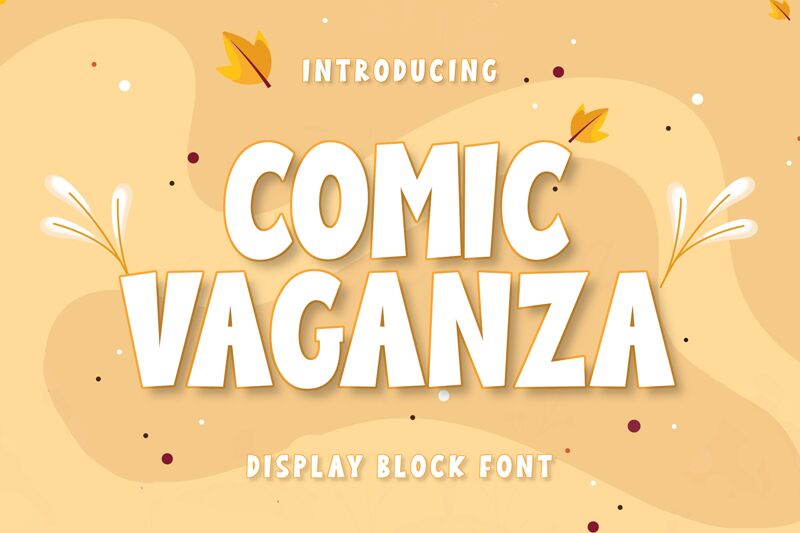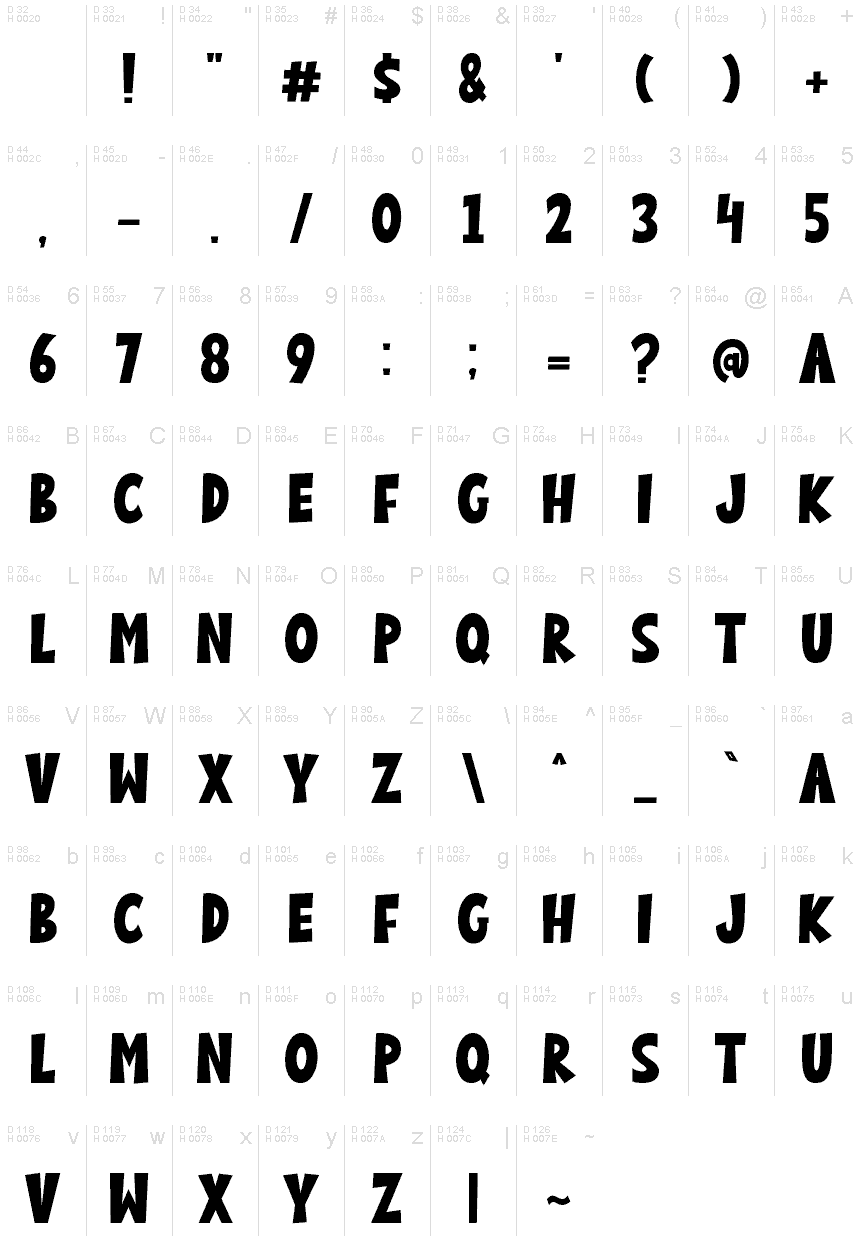
Comic Vaganza
Comic Vaganza font by AV Type is a fun and energetic display font with cartoonish elements. Its casual style, bold presence, and comic book influence make it a retro-inspired design tool with multiple uses. The enjoyable look of this free typeface can even be highlighted by arranging its letters in a zigzag pattern to build exciting headlines.
Use Comic Vaganza in covers for Marvel and DC comics, creative blog headers, mobile games for kids, online game websites, joke books, packaging designs for toys and snacks, or old-school animated TV show titles.